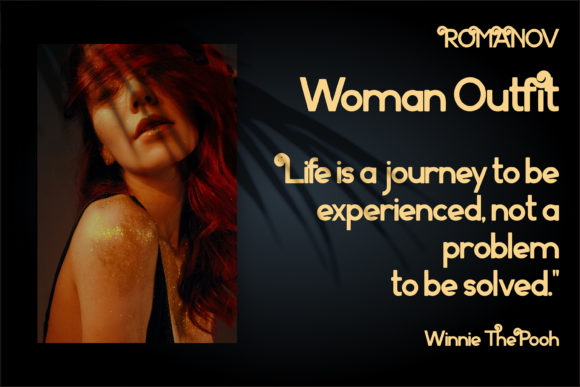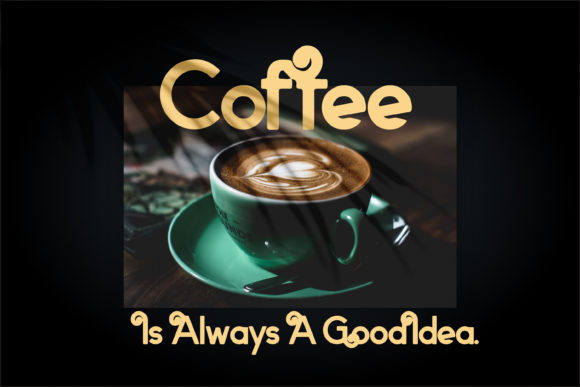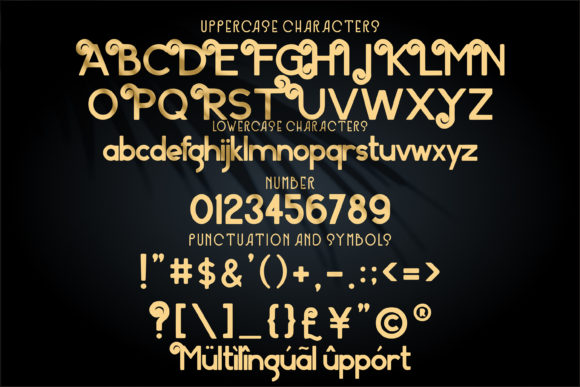
Introduction to Giglle Diglle Font
Have you ever been working on a creative project, pouring your heart and soul into every detail, only to be held back by the lack of the perfect font? That’s where the Giglle Diglle Font comes in – a stunning, vintage-styled display font that’s sure to elevate your designs to the next level.
Imagine being able to add a touch of luxury and sophistication to your logos, branding projects, or product packaging with ease. The Giglle Diglle Font is the perfect design resource for anyone looking to give their creative project a high-quality, premium feel. With its PUA-encoded features, you’ll have access to all the glyphs and swashes you need to create truly unique and eye-catching designs.
Key Features of Giglle Diglle Font
- Features a unique, playful design with transparent background
- Perfect for use in digital designs, logos, and branding materials
- Great for designers looking for a distinctive, eye-catching font for their next creative project
Honest Review: Giglle Diglle Font
I recently stumbled upon the Giglle Diglle Font while searching for a unique design resource for my creative project. The first thing that caught my attention was its high quality and free download option, which is always a plus for designers like me.
Here are some things that work well about the Giglle Diglle Font:
- ✨ Unique and playful design that can add a fun touch to any project
- ✨ Transparent background option for easy use in various design contexts
- ⚠️ Limited character set, which might not be suitable for projects that require a wide range of characters
- ⚠️ Not ideal for use in small font sizes, as the design may become difficult to read
Overall, I’d say the Giglle Diglle Font is a great addition to any designer’s toolkit, especially for creative projects that require a unique and playful touch. Just be mindful of its limitations, and you’ll be good to go!
To get the most out of the Giglle Diglle Font, use it in conjunction with other design elements, such as images and graphics, to create visually appealing designs. You can also experiment with different font sizes and colors to create unique and eye-catching designs.
The Giglle Diglle Font is perfect for creating designs for social media, presentations, and marketing materials. Its high-quality design and transparent background make it ideal for creating custom graphics and designs.